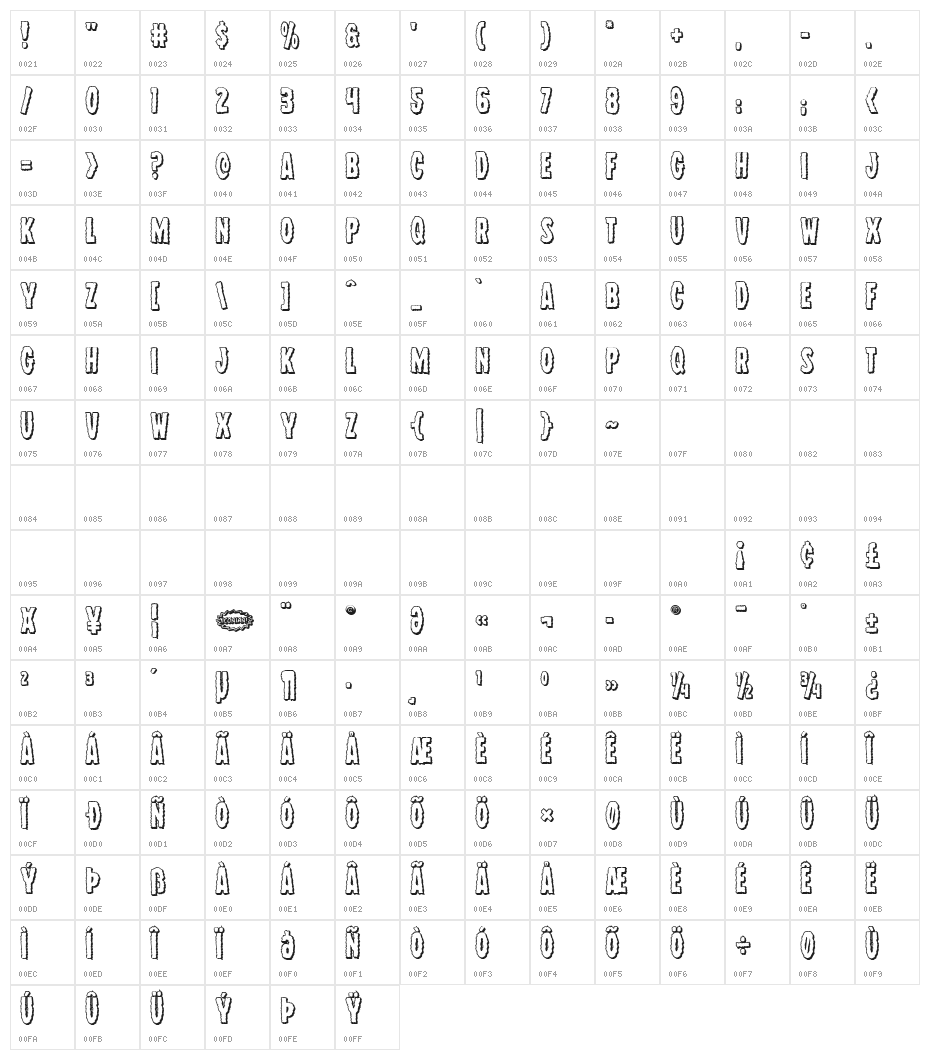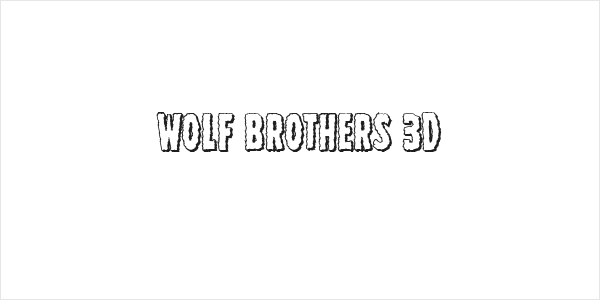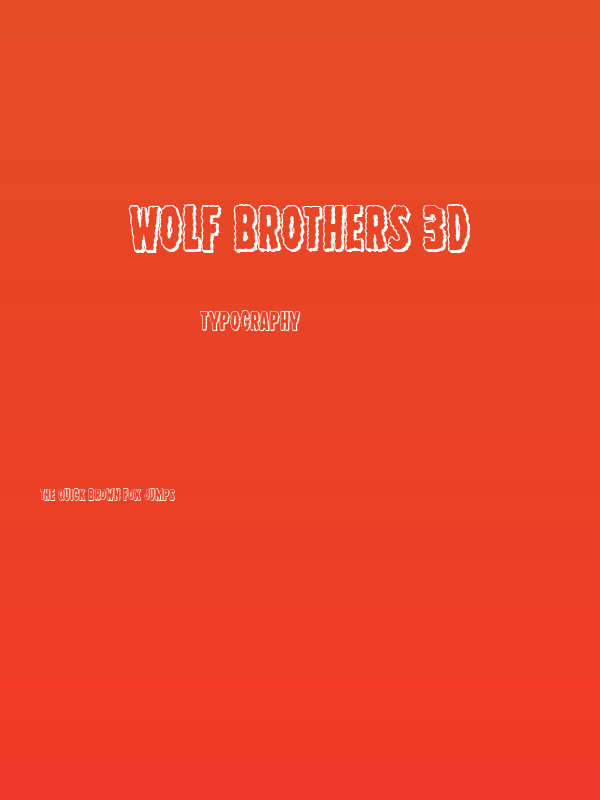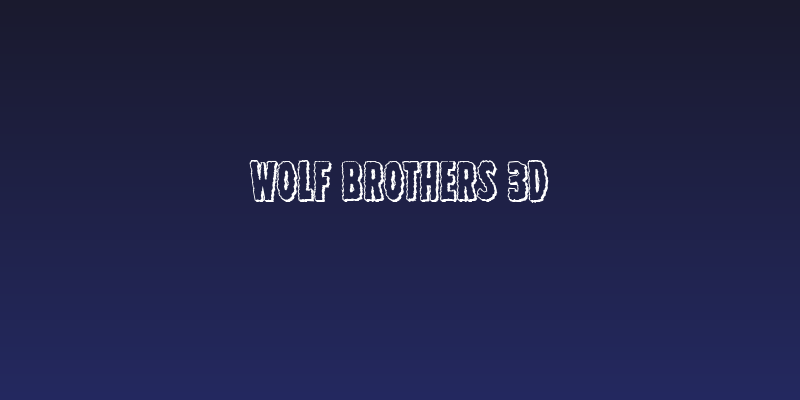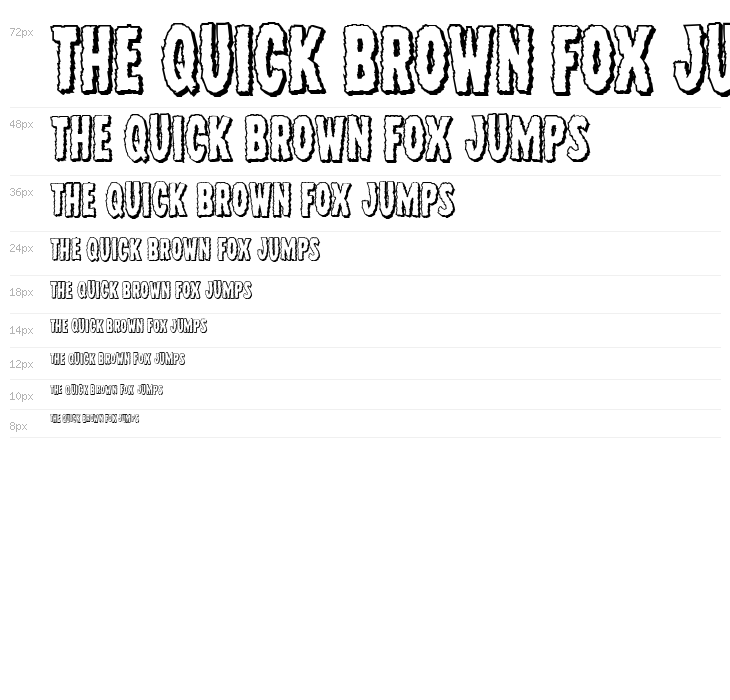
Wolf Brothers 3D Font
Wolf Brothers 3D Description
This font features a bold, three-dimensional appearance with a rugged, textured outline that gives it a dynamic and eye-catching look. The characters are uppercase and have a strong presence, making them ideal for impactful designs. The texture resembles a rough, hand-drawn style, adding a sense of movement and energy. This font is perfect for projects that require a bold statement, such as posters, headlines, or branding materials. The numbers and special characters maintain the same textured style, ensuring consistency across all elements.
| Proposed Projects | Ideal for posters, headlines, branding, and any design needing a bold, dynamic impact. |